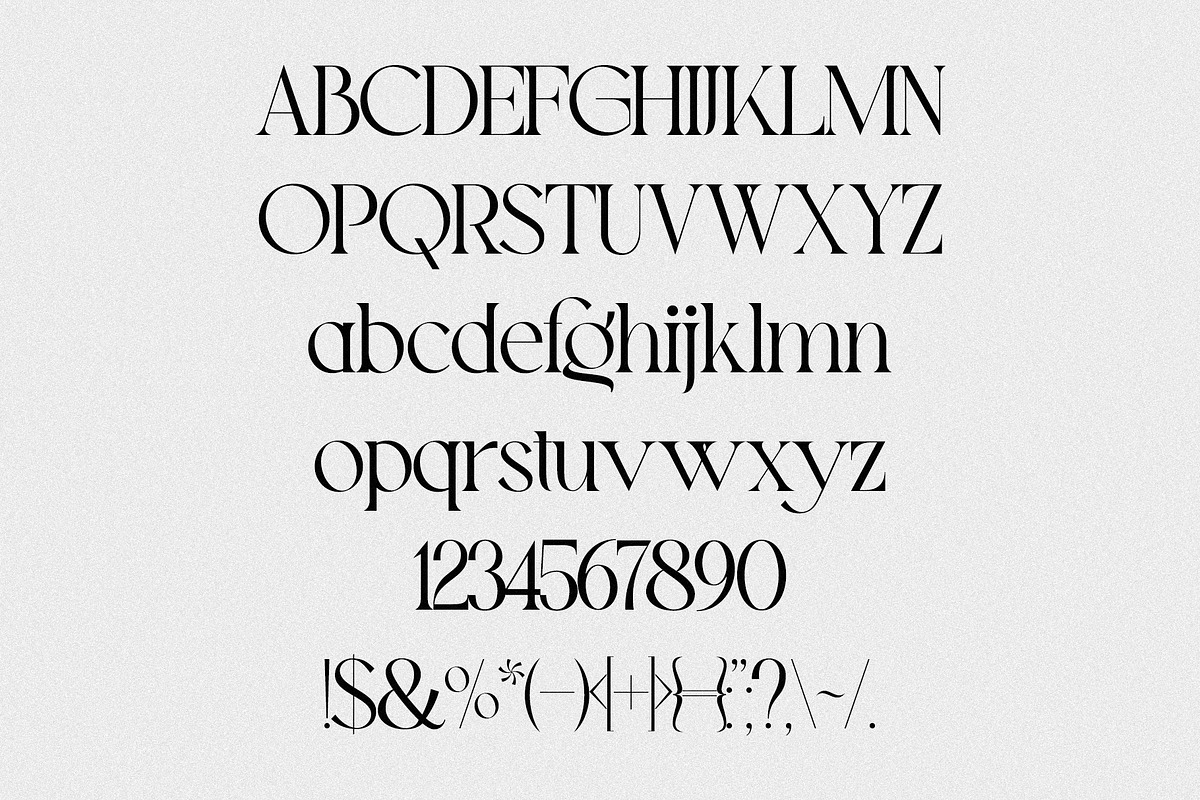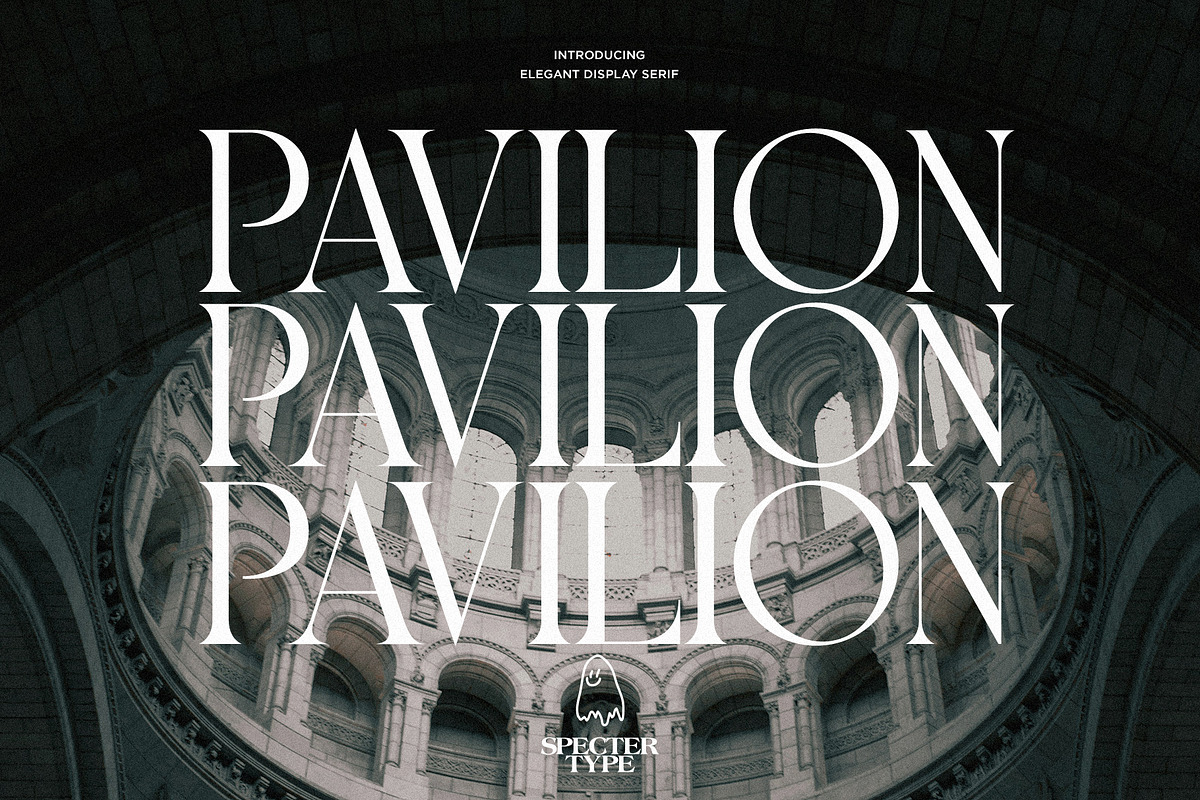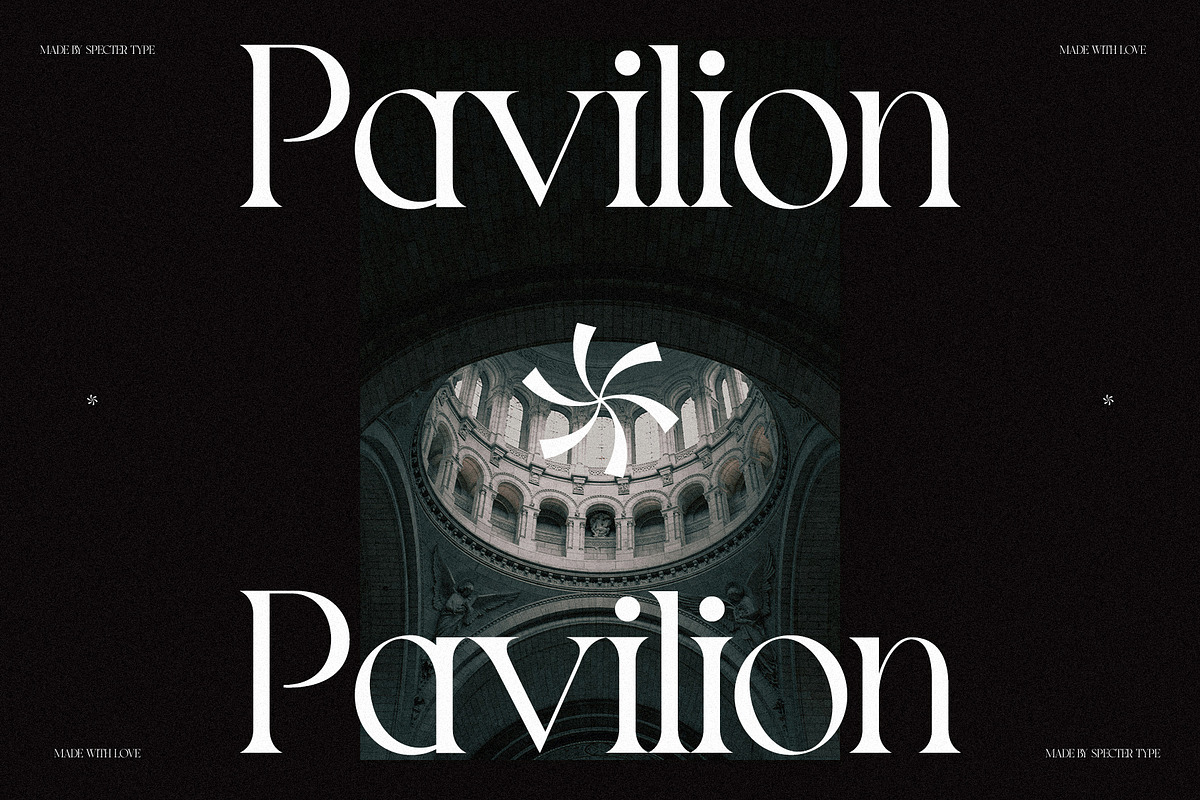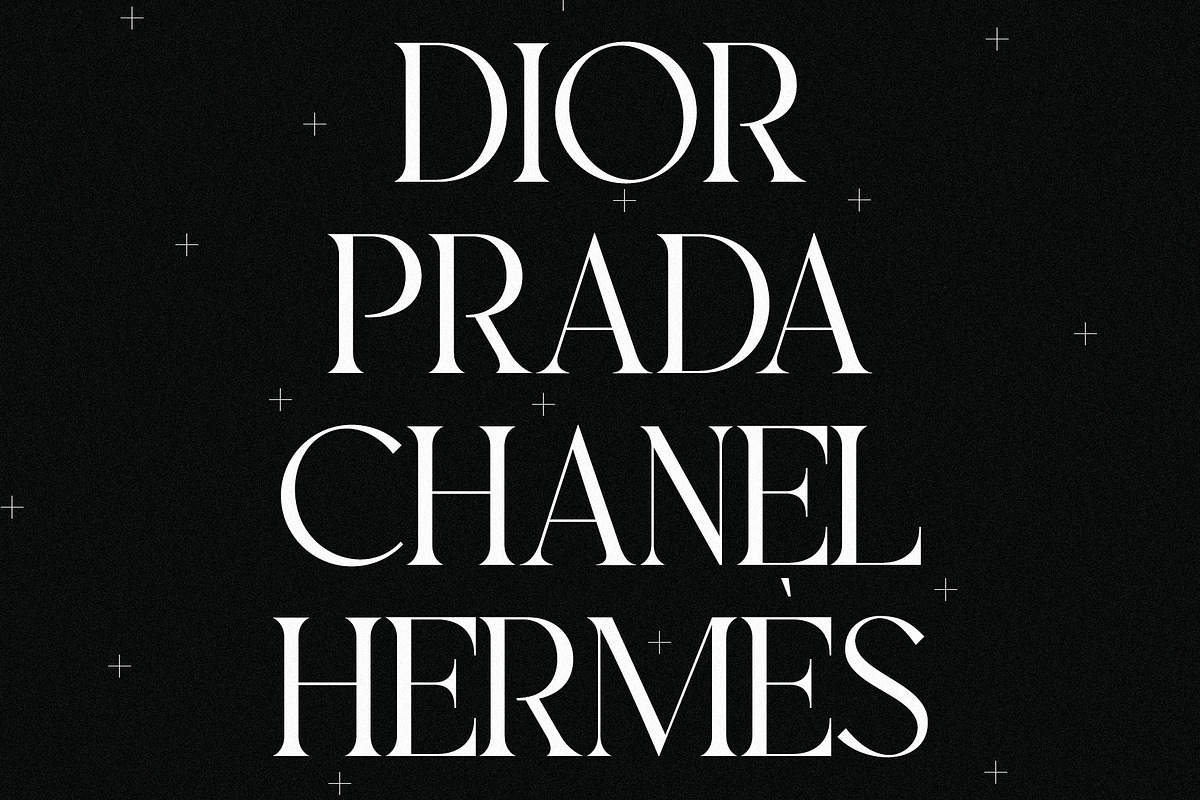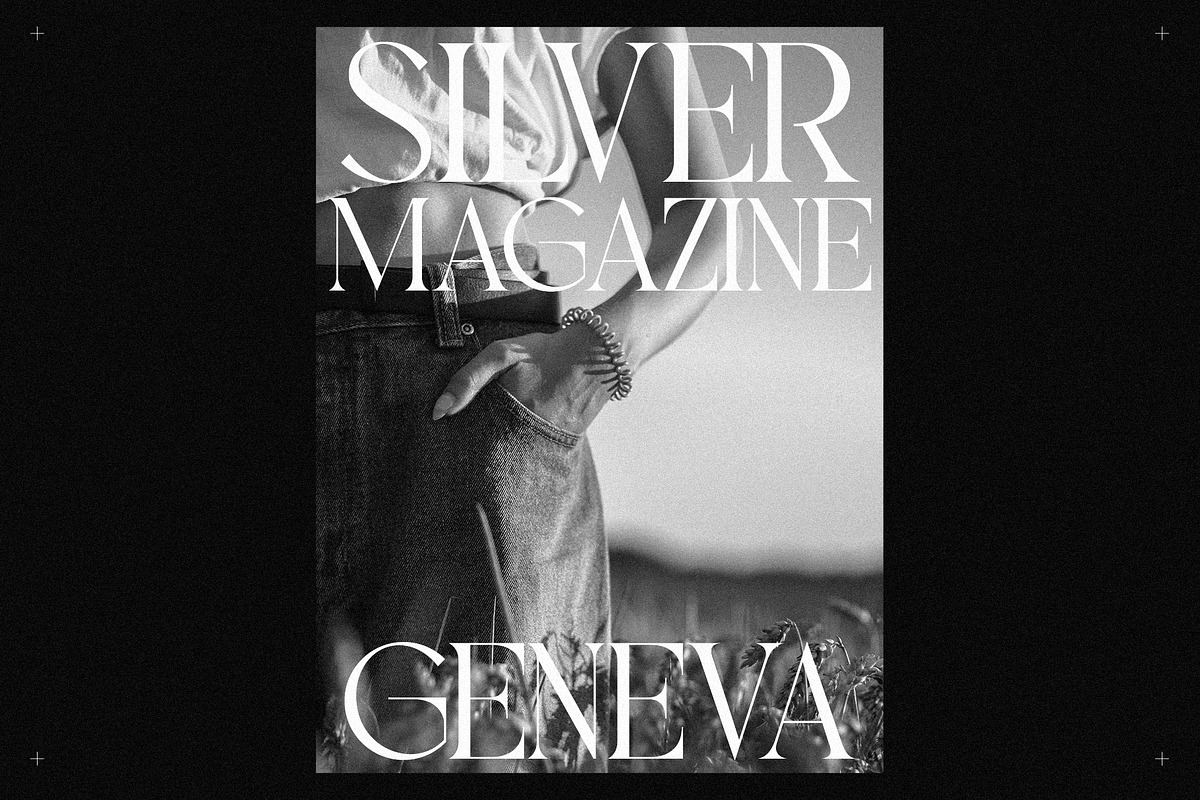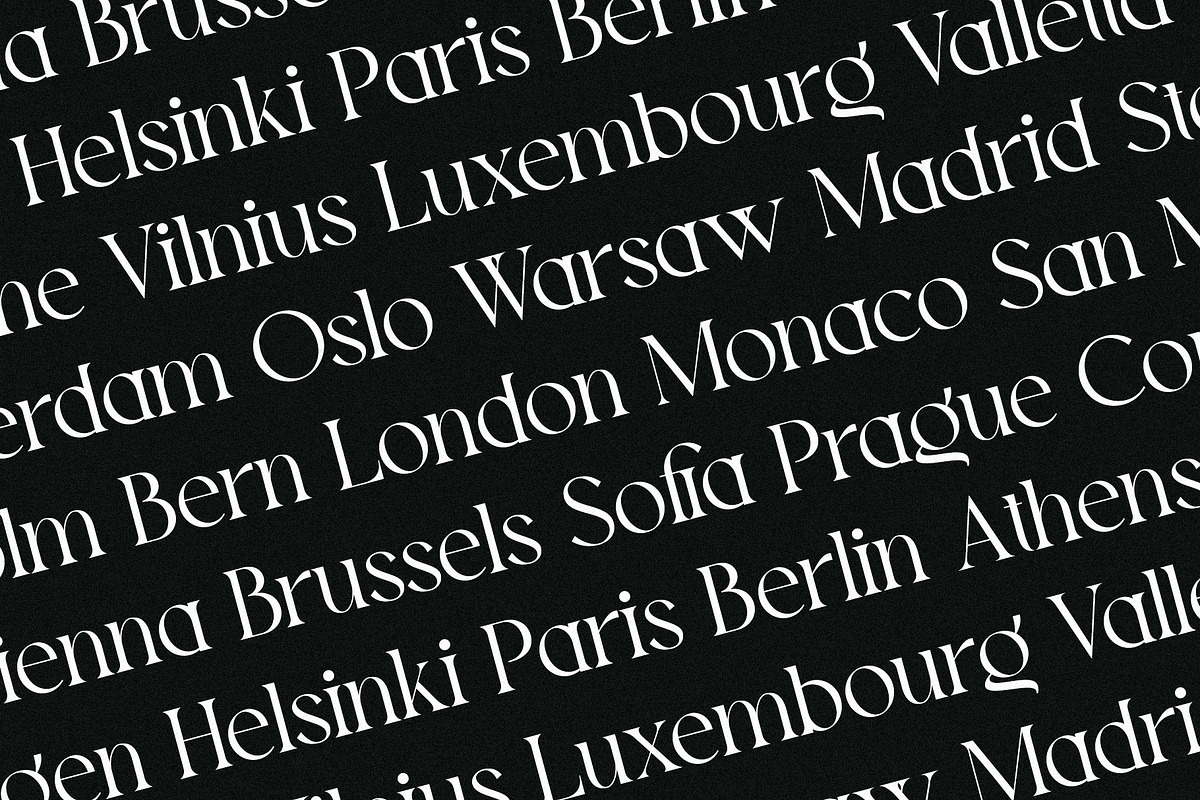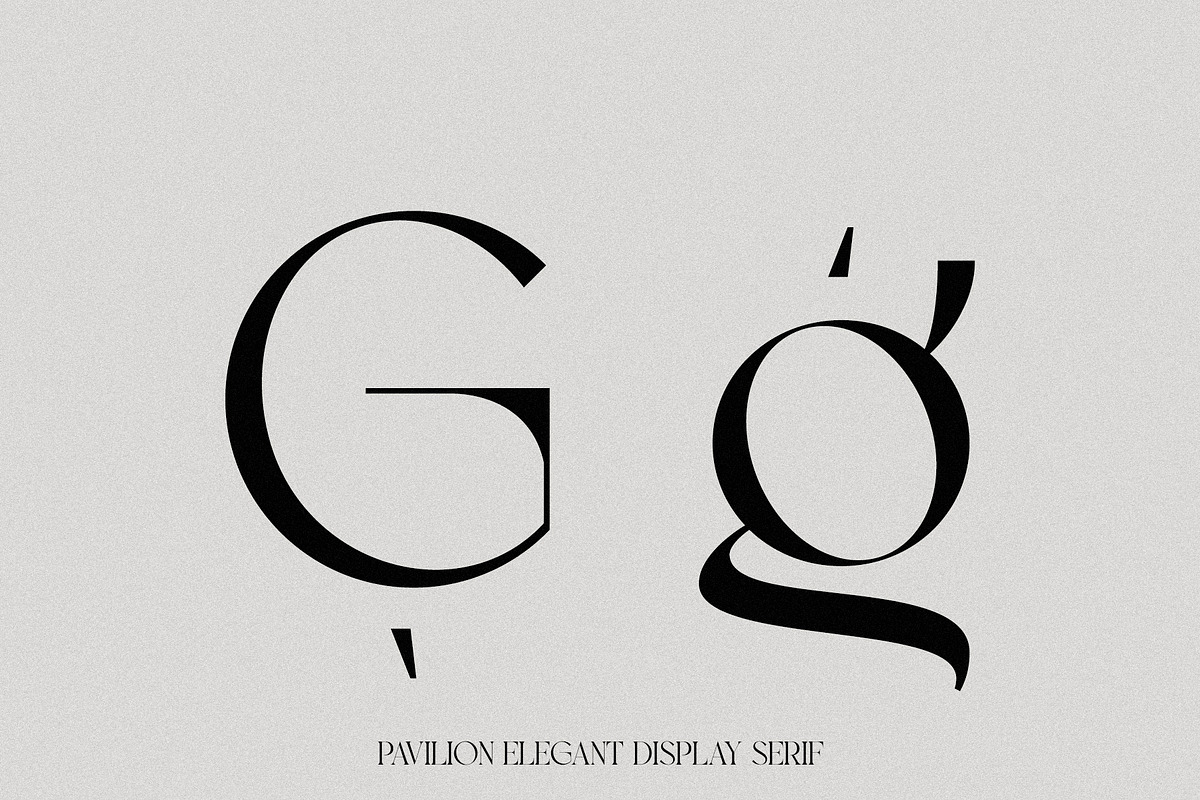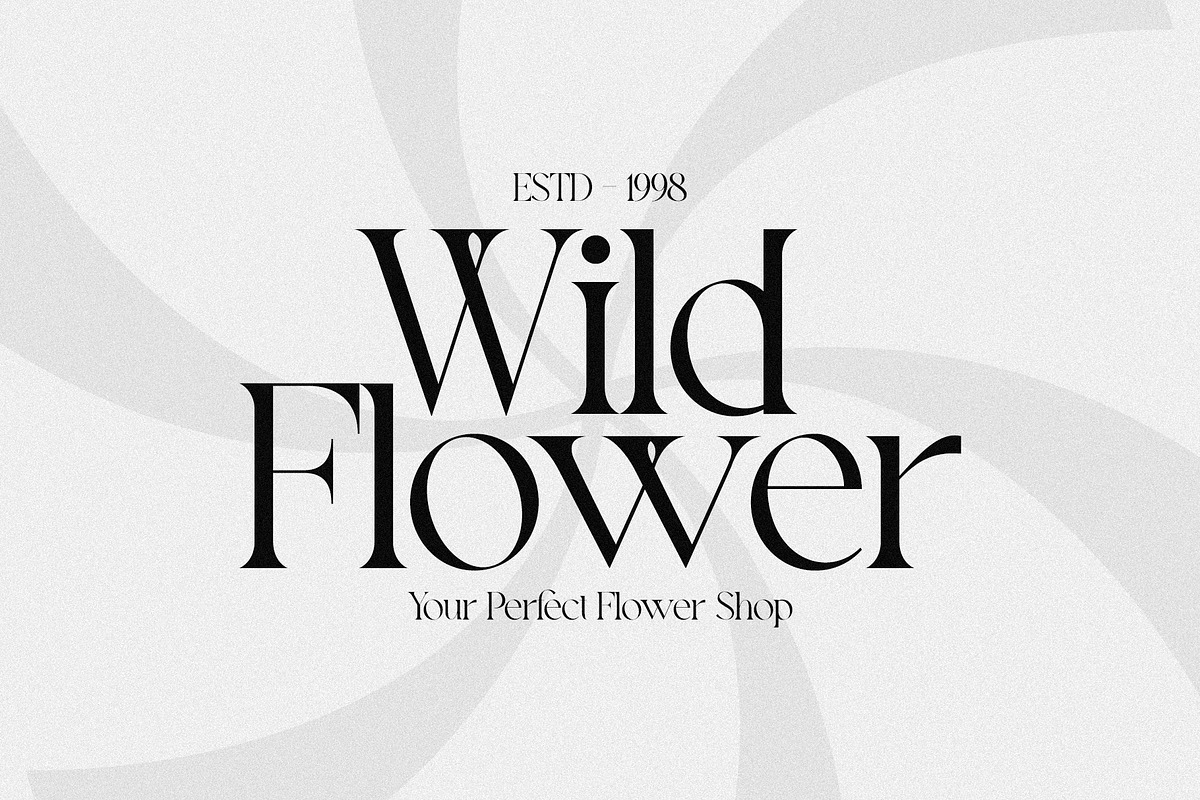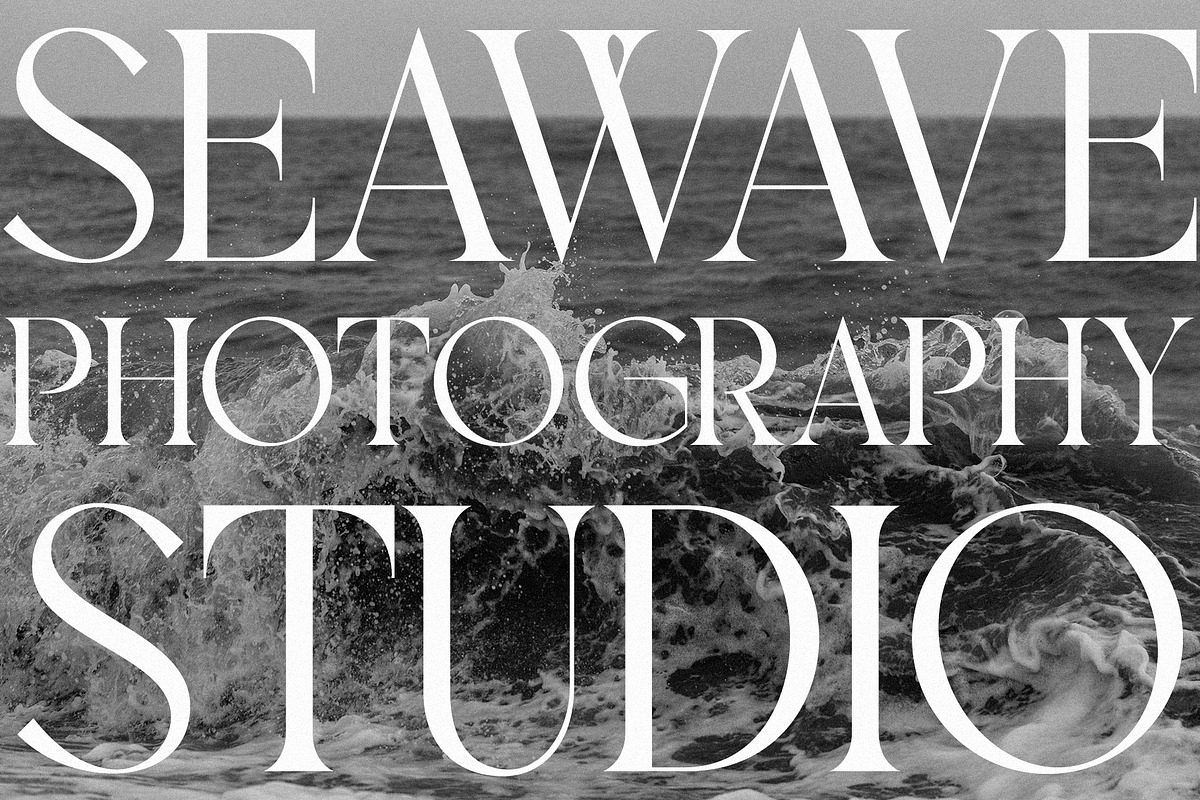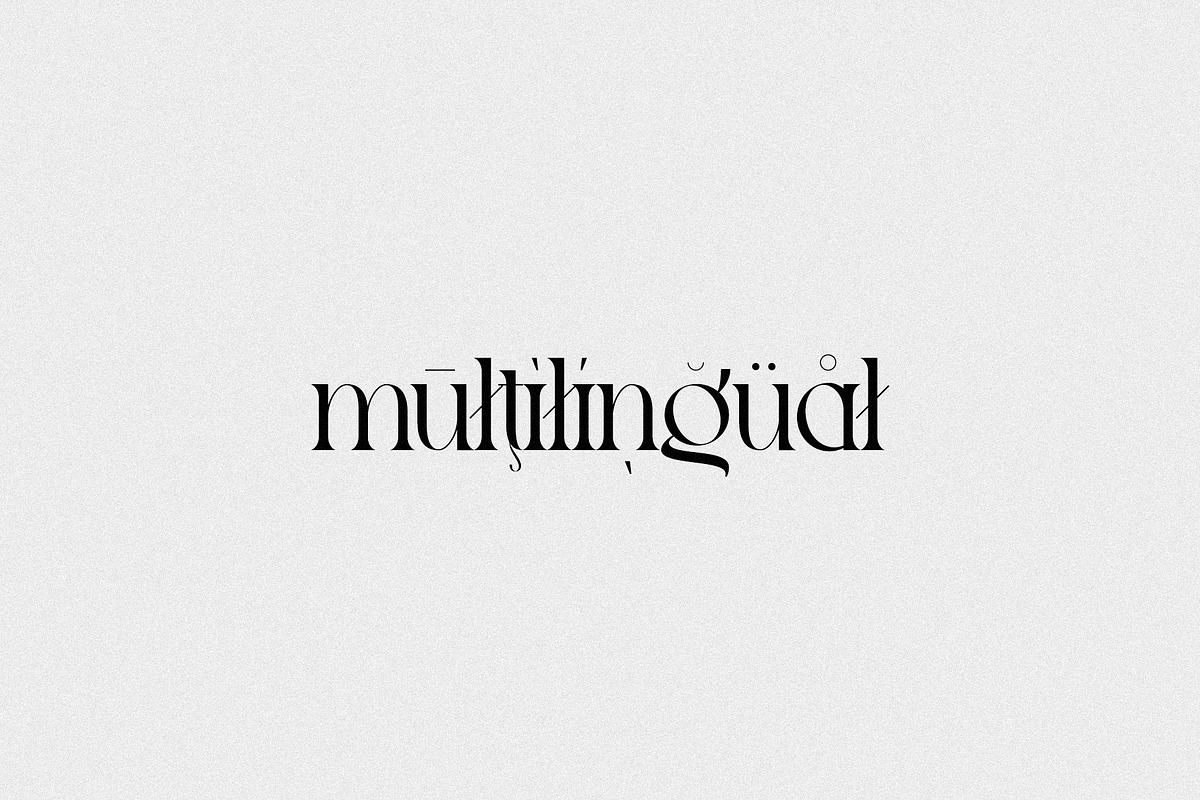
Pavilion - Elegant Display Serif
Pavillion – Elegant Display Serif is a graceful serif typeface made to stand out with quiet confidence. It combines classic serif beauty with a modern touch, featuring smooth curves, elegant contrast, and carefully balanced letterforms. Pavillion feels refined without being stiff, making it perfect for designs that want to feel thoughtful, stylish, and timeless. Pavillion works beautifully in display settings where detail and character matter. From branding and editorial design to logos, invitations, and creative projects, it adds a sense of sophistication and warmth. Its timeless style helps designs feel considered, confident, and memorable.
Pavillion features uppercase & lowercase letters, numbers & symbols, multilingual support, basic ligatures & over 300+ glyphs.